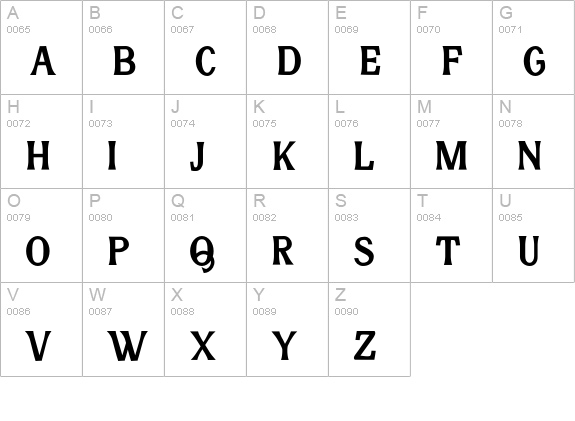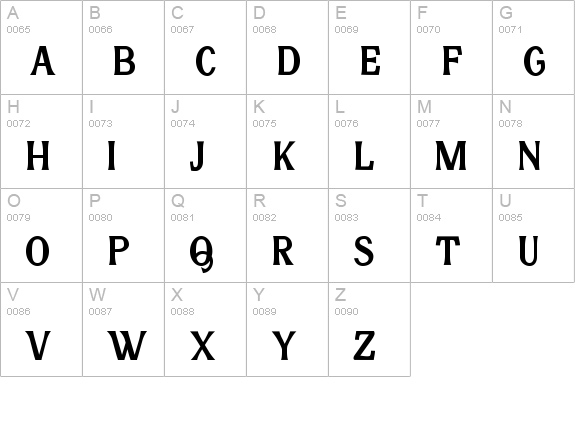
DoctorBold Font Details
DoctorBold font is a striking and bold typeface that exudes professionalism and confidence. With its clean lines and strong presence, this font is perfect for making a bold statement in your designs. Its commanding appearance commands attention and adds a touch of sophistication to any project. Best of all, DoctorBold font is available for free download at FontsMarket.com. This means you can easily access this powerful font and use it in your projects without any hassle. Whether you're designing a poster, creating a logo, or crafting a presentation, DoctorBold font is sure to make a lasting impression. Download it today and elevate your designs to new heights of style and elegance.